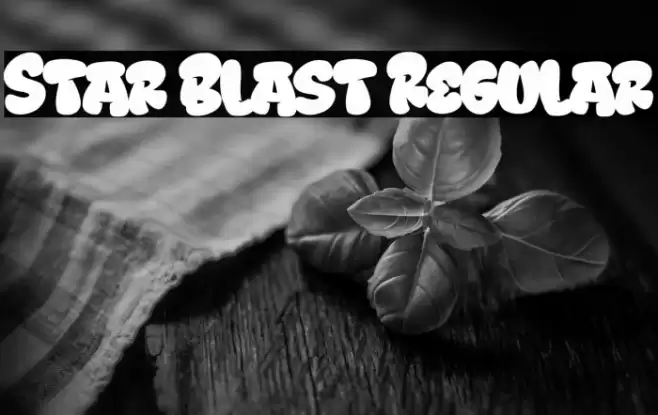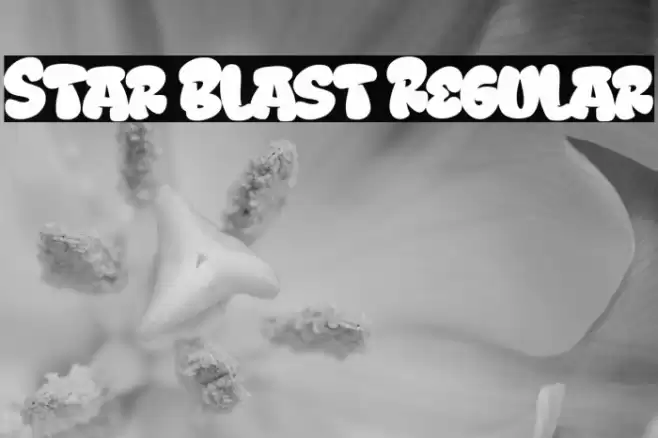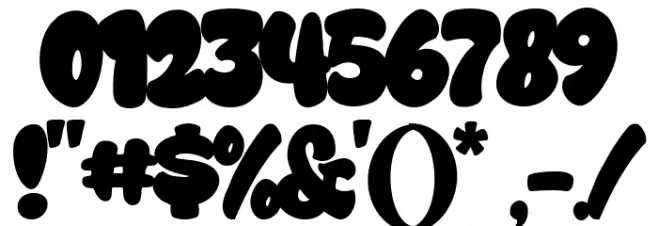
Star Blast Regular Font
Star Blast Regular Description
This font features bold, rounded characters with a playful and energetic style. The letters are thick and have a bubbly appearance, making them stand out with a strong visual impact. The uppercase and lowercase letters maintain a consistent weight, contributing to a cohesive look. The numbers and special characters follow the same design principles, ensuring uniformity across all glyphs. The overall style is reminiscent of graffiti or comic book lettering, with a modern twist that adds a sense of fun and creativity.
A bold, rounded, and playful font with a graffiti-like style from Cartoon fonts.
- Proposed Projects: Ideal for children's book covers, comic strips, playful branding, and event posters.
- Overall Style: Modern, Playful